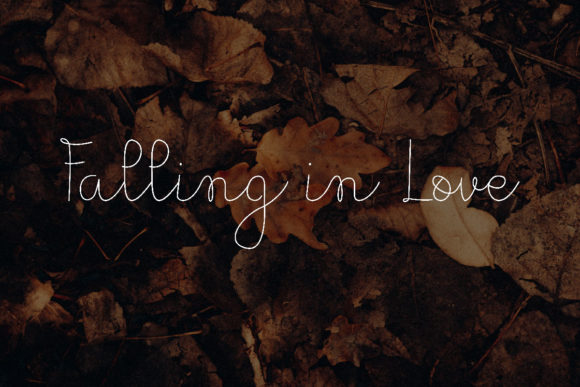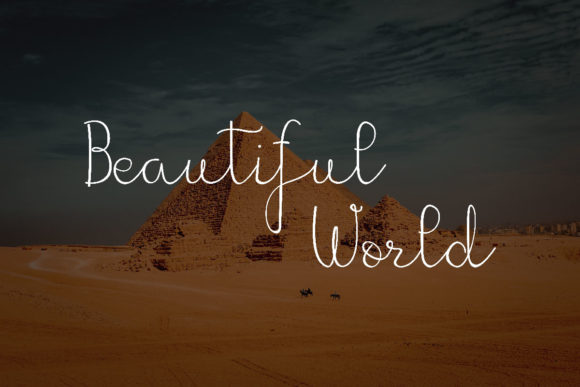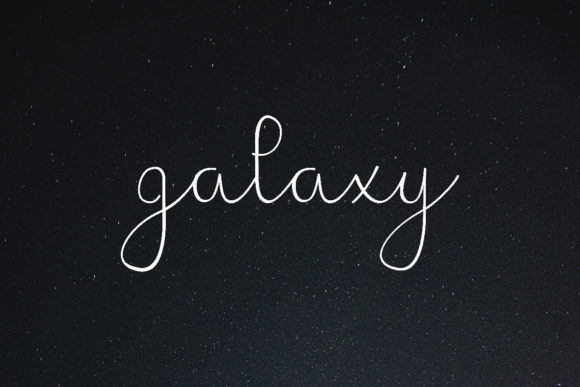
Introduction to Gadgreaty Font
Do you remember that moment when you stumbled upon the perfect design element that took your creative project to the next level? For designers, it’s a moment of pure joy and a reminder of the importance of having the right tools at our disposal. I still recall the excitement I felt when I discovered the Gadgreaty Font – a cute and delicate script that added a touch of romance to my latest design.
As a designer, you’re always on the lookout for high-quality design resources that can elevate your work and make it stand out. The Gadgreaty Font is one such gem that’s sure to become a valuable addition to your design arsenal. With its lovely twist and transparent background, this font is perfect for creating eye-catching designs that grab attention.
- High-quality font design suitable for creative projects requiring a unique touch.
- Includes a range of characters and symbols, making it a versatile design resource.
Honest Review: Gadgreaty Font
I recently stumbled upon the Gadgreaty Font while searching for a free download to enhance my creative project. As a designer, I was excited to test this high-quality font and see if it would meet my expectations.
Here are some of the things that work well with the Gadgreaty Font: ✨
- Unique design style that stands out from other fonts
- Well-suited for creative projects that require a bold and eye-catching font
However, I did encounter a few limitations: ⚠️
- Some characters may not display correctly in certain fonts or font sizes
- Limited language support, which may be a concern for projects that require multiple languages
Overall, I was impressed with the Gadgreaty Font, and it has become a valuable addition to my design library. While it may have some limitations, its unique design style and high-quality features make it an excellent choice for designers looking for a free download.
The Gadgreaty Font is commonly used for creative projects such as branding, logos, and marketing materials. Its high-quality design and transparent background make it an ideal choice for designers who want to create professional-looking designs.